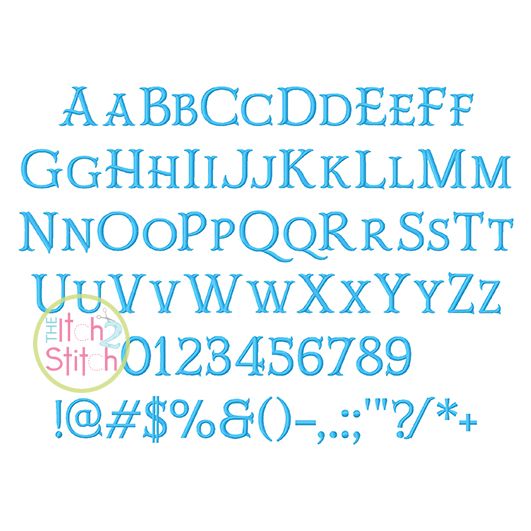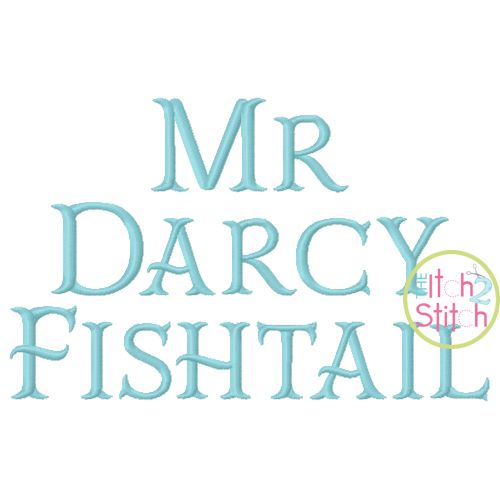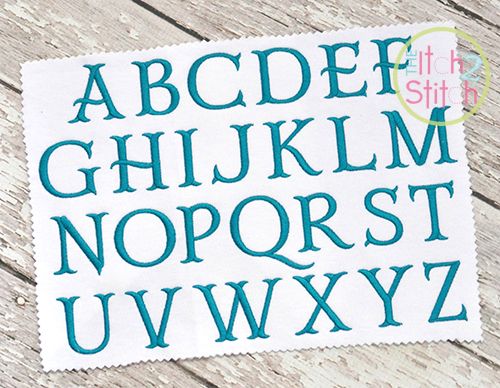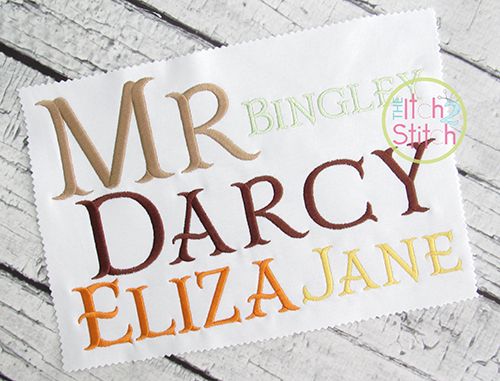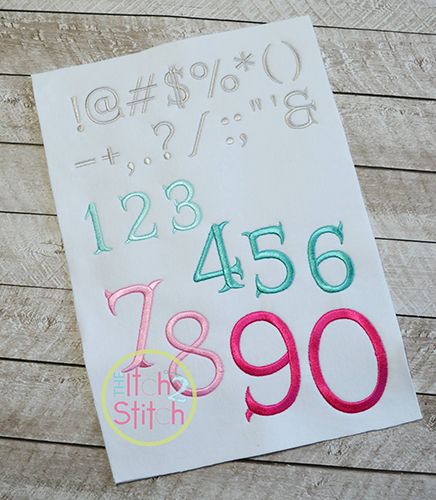
Mr Darcy Fishtail Satin Stitch Embroidery Font
This is a "small caps" font so the lowercase letters for each size of the font are smaller versions of the capital letters, as pictured above. Please note that the 3" Q and 3" W do NOT fit in the 4x4 hoop.